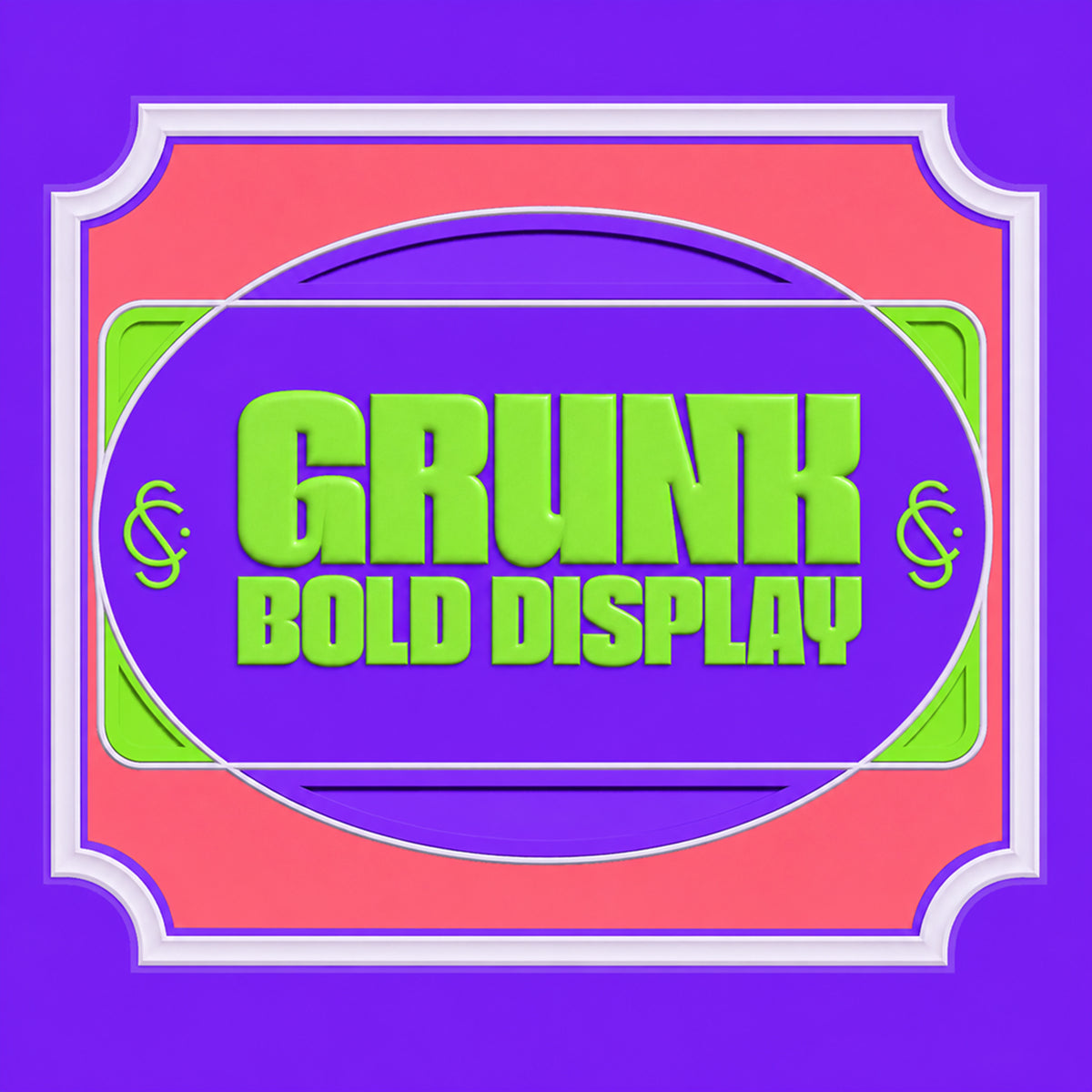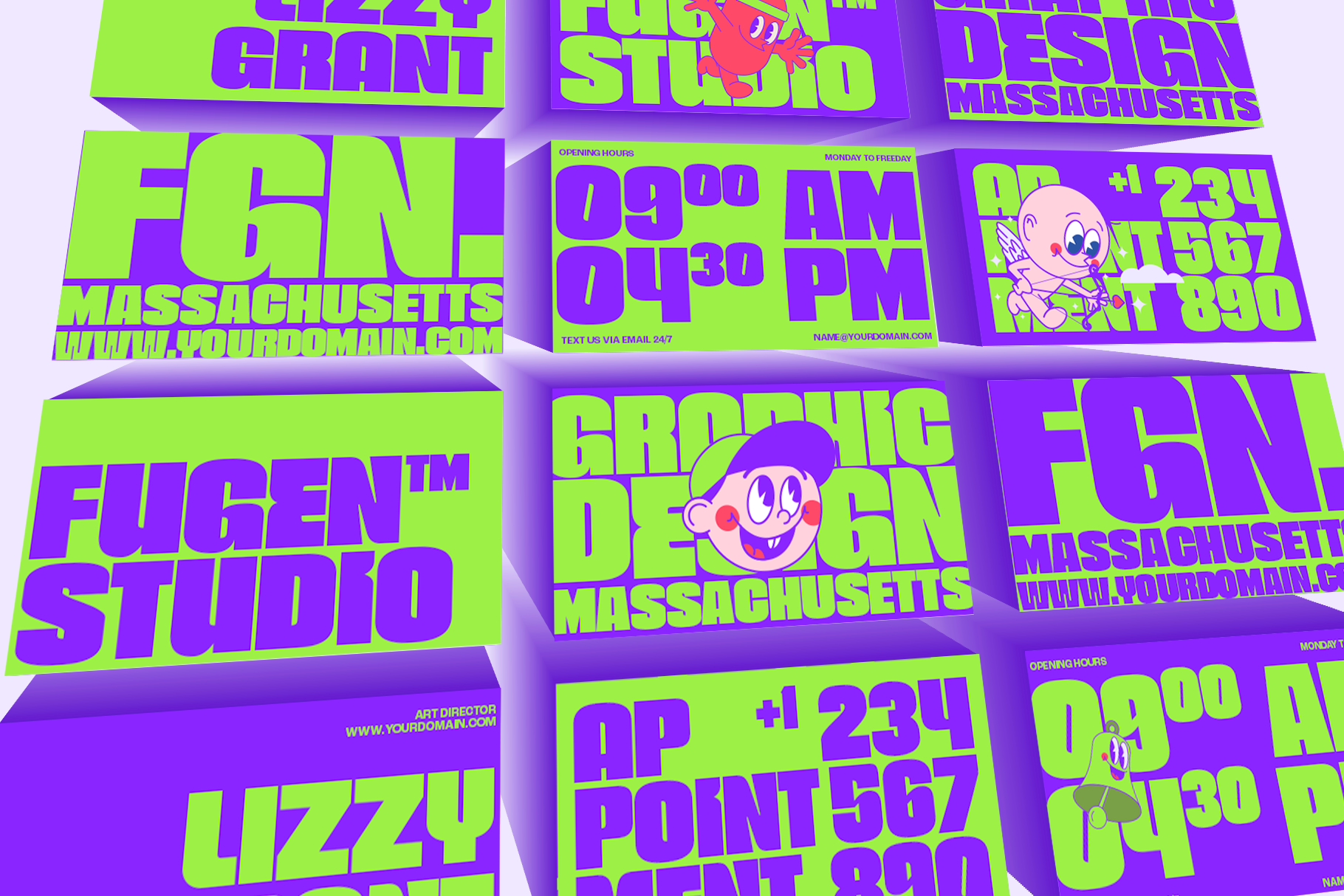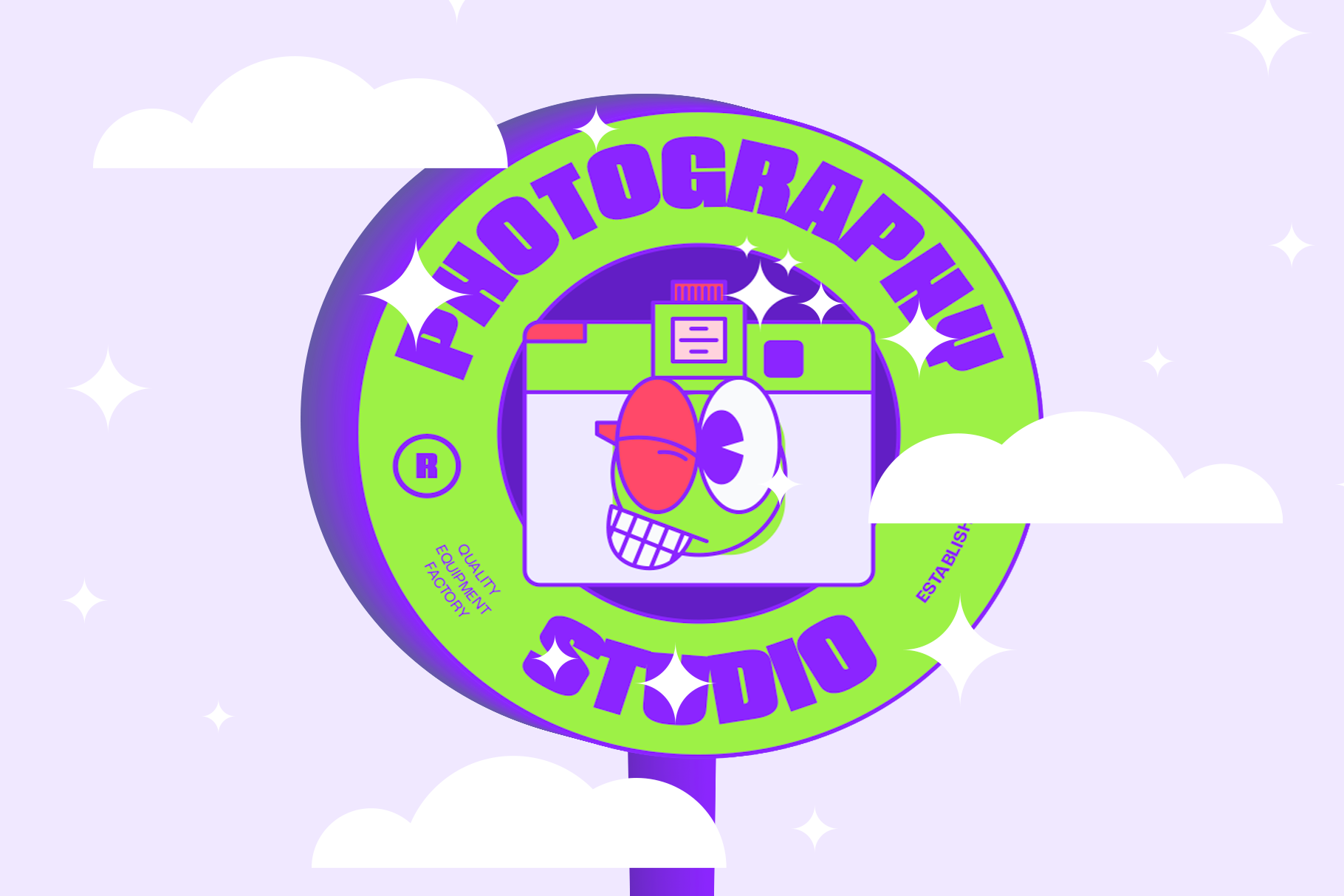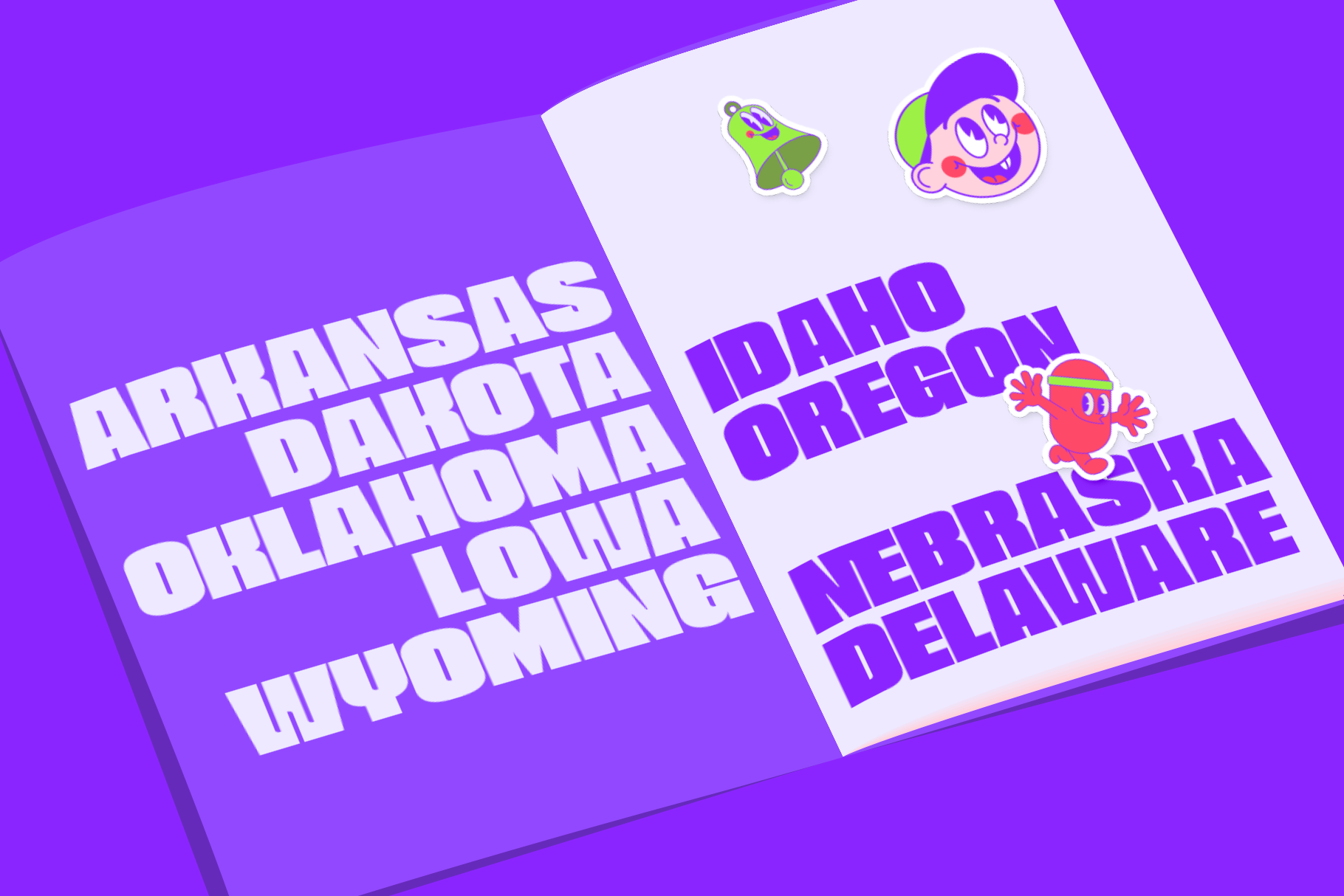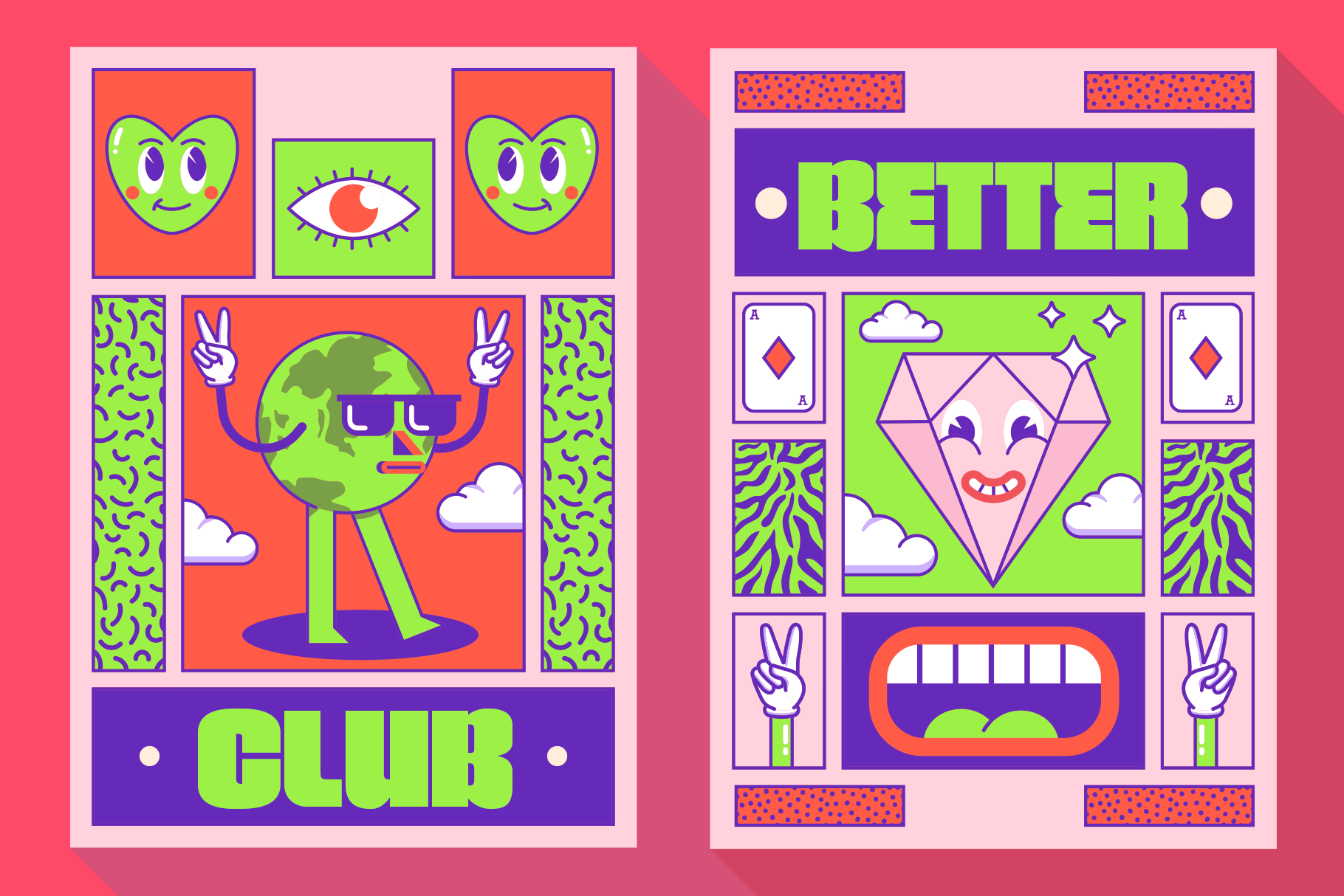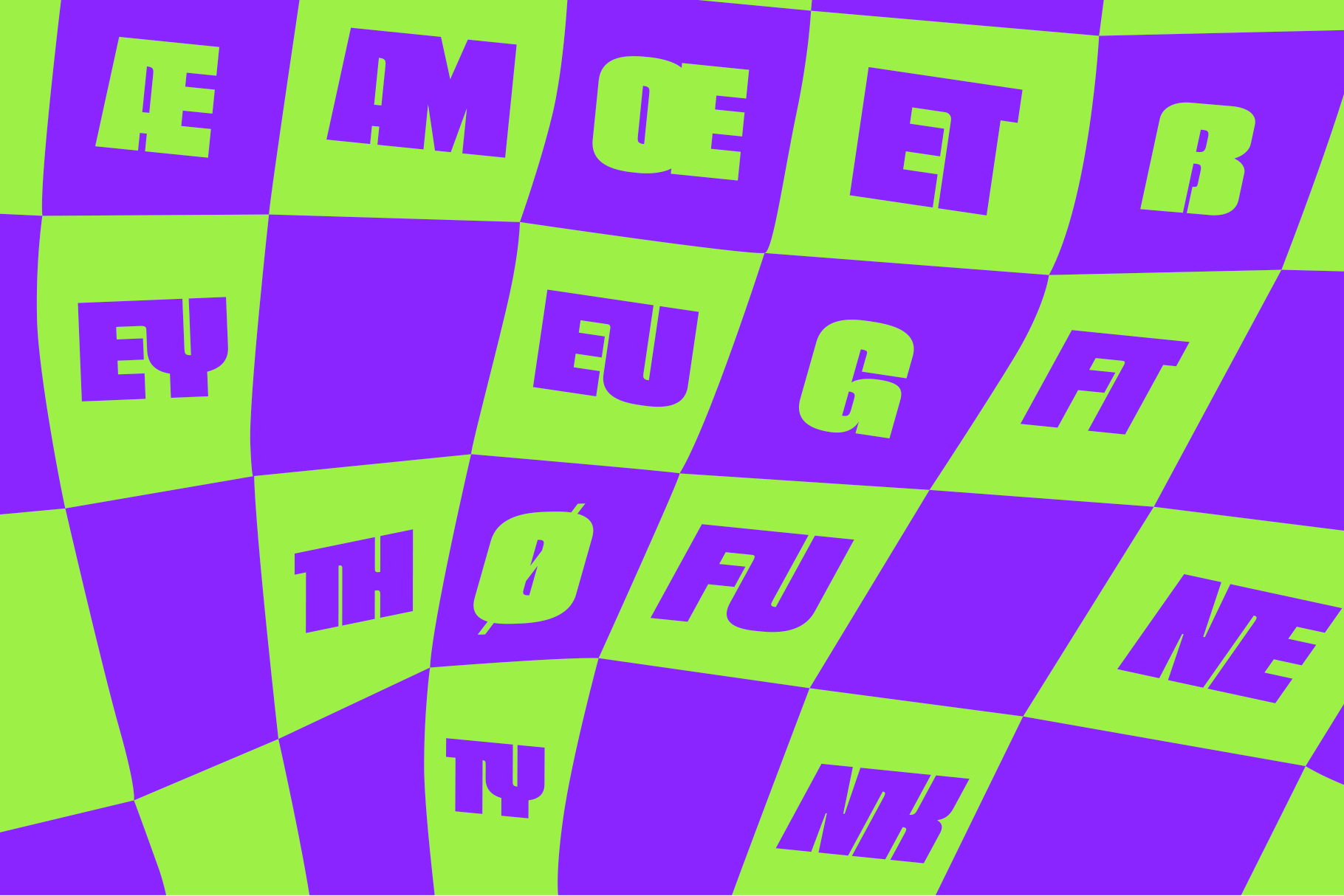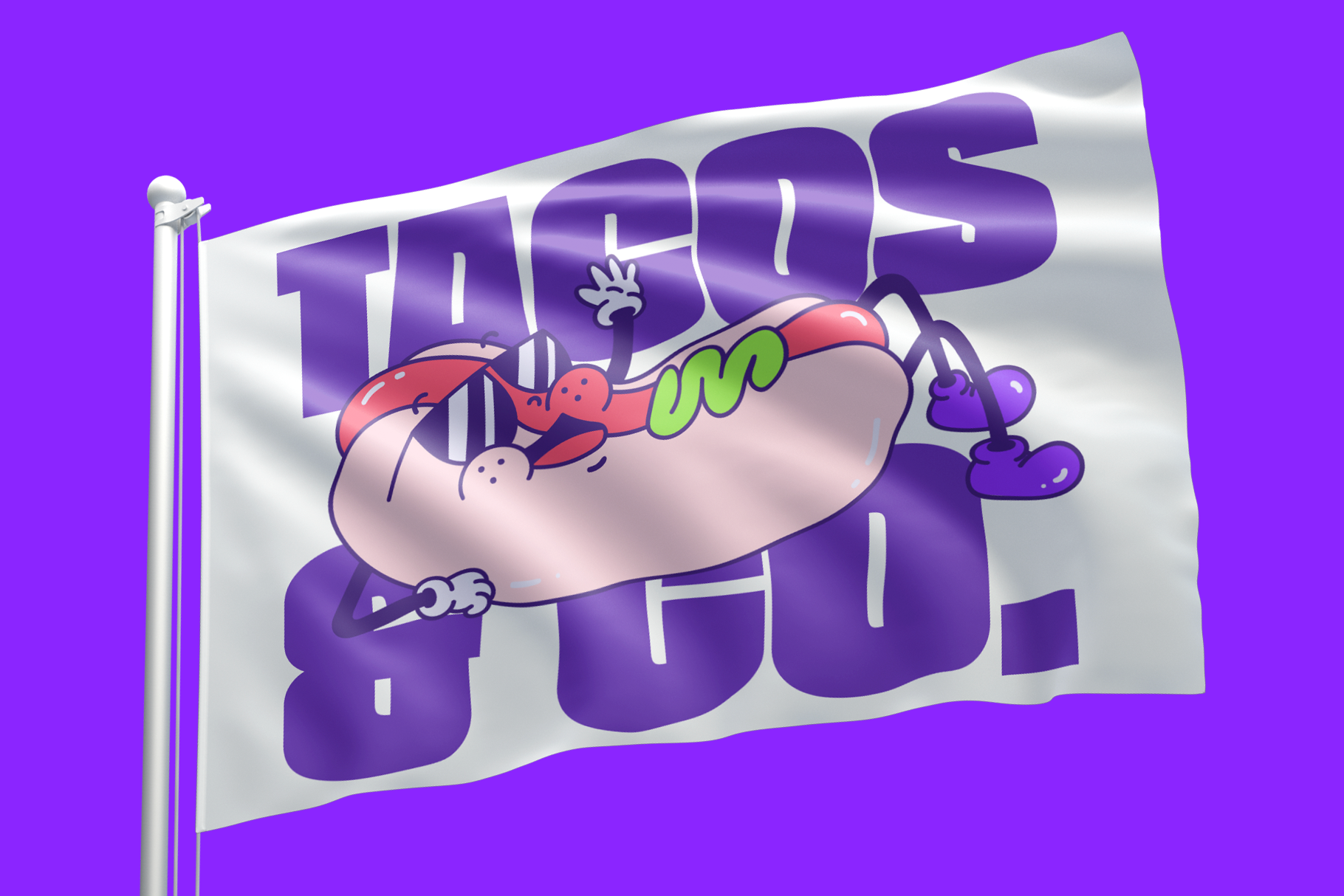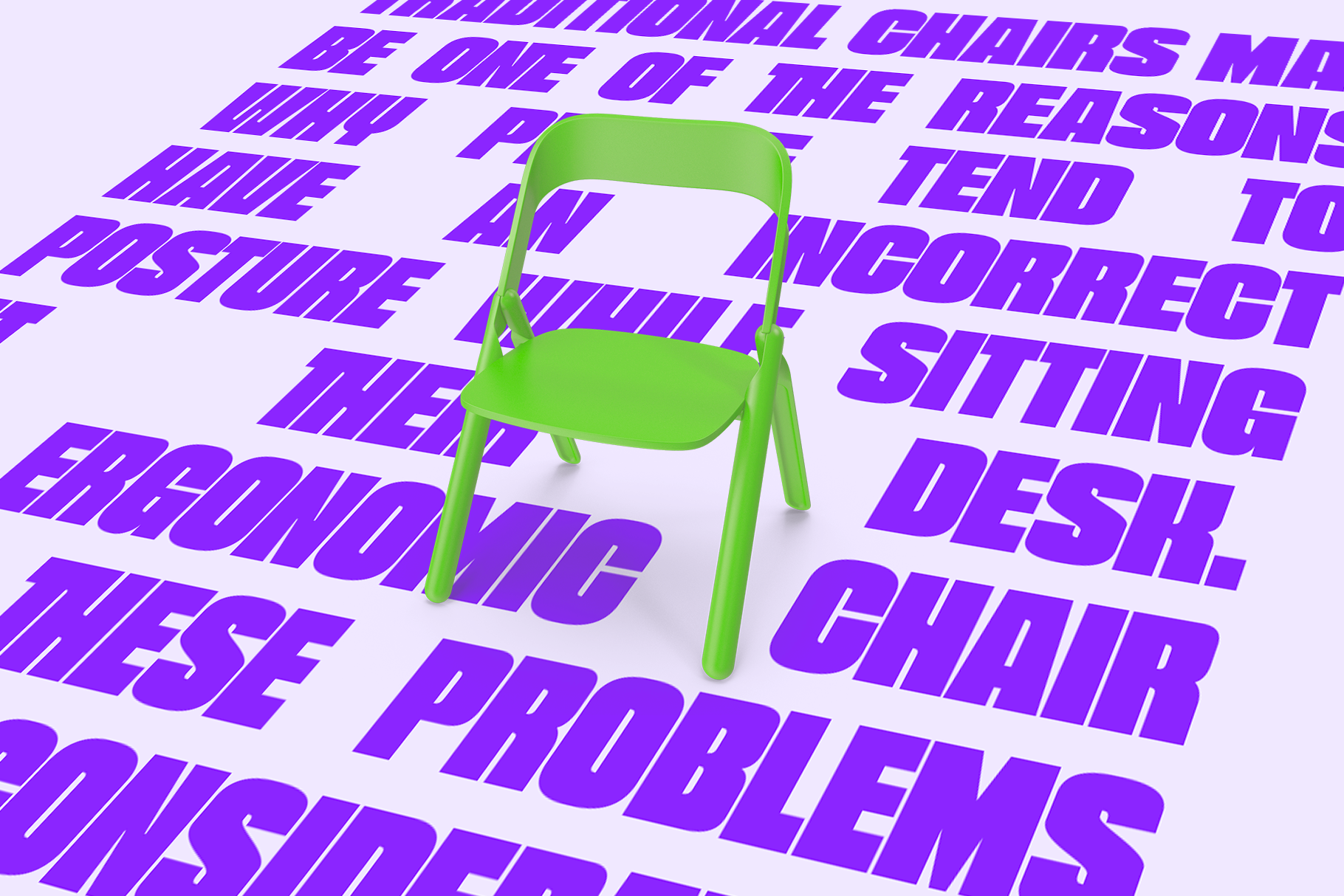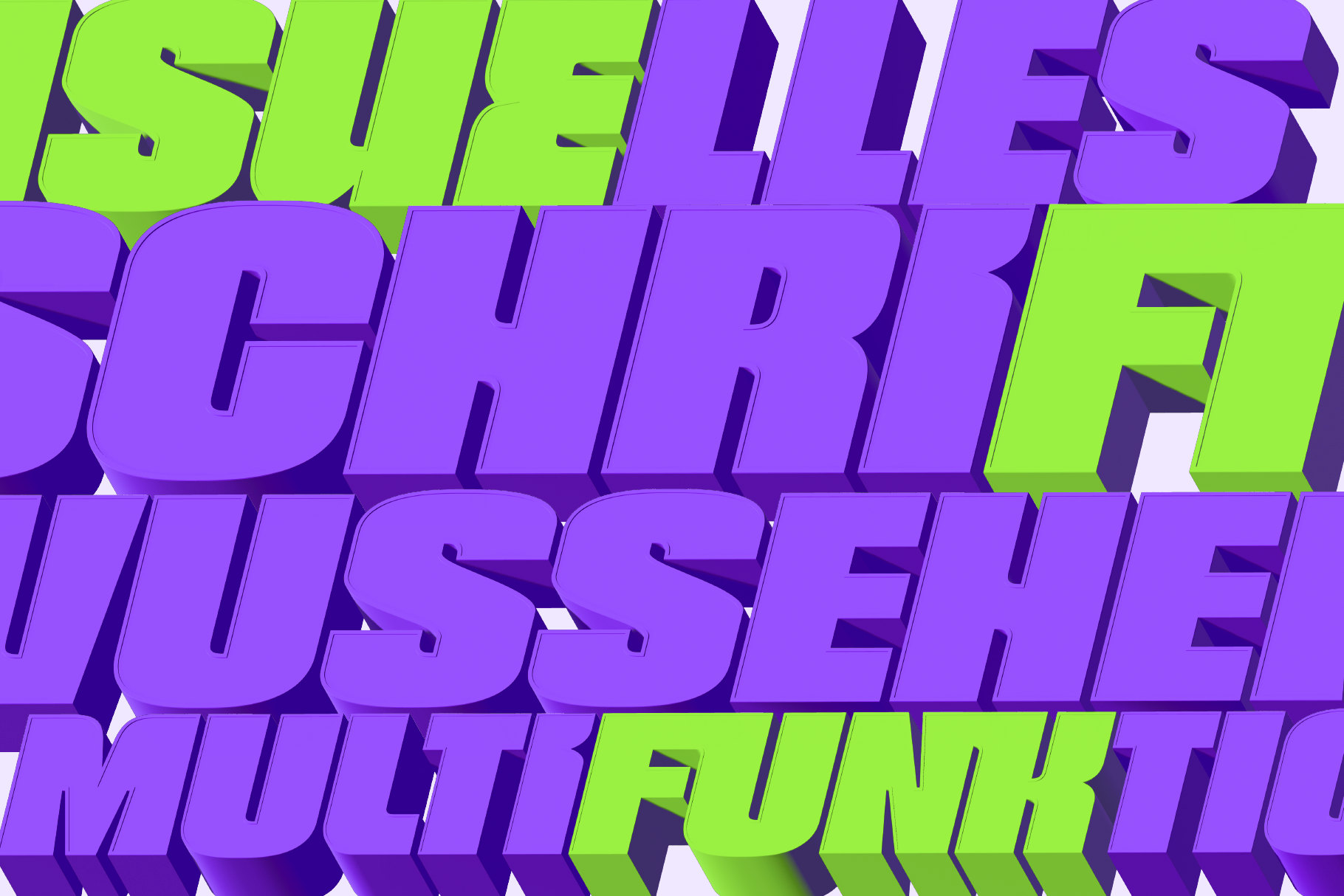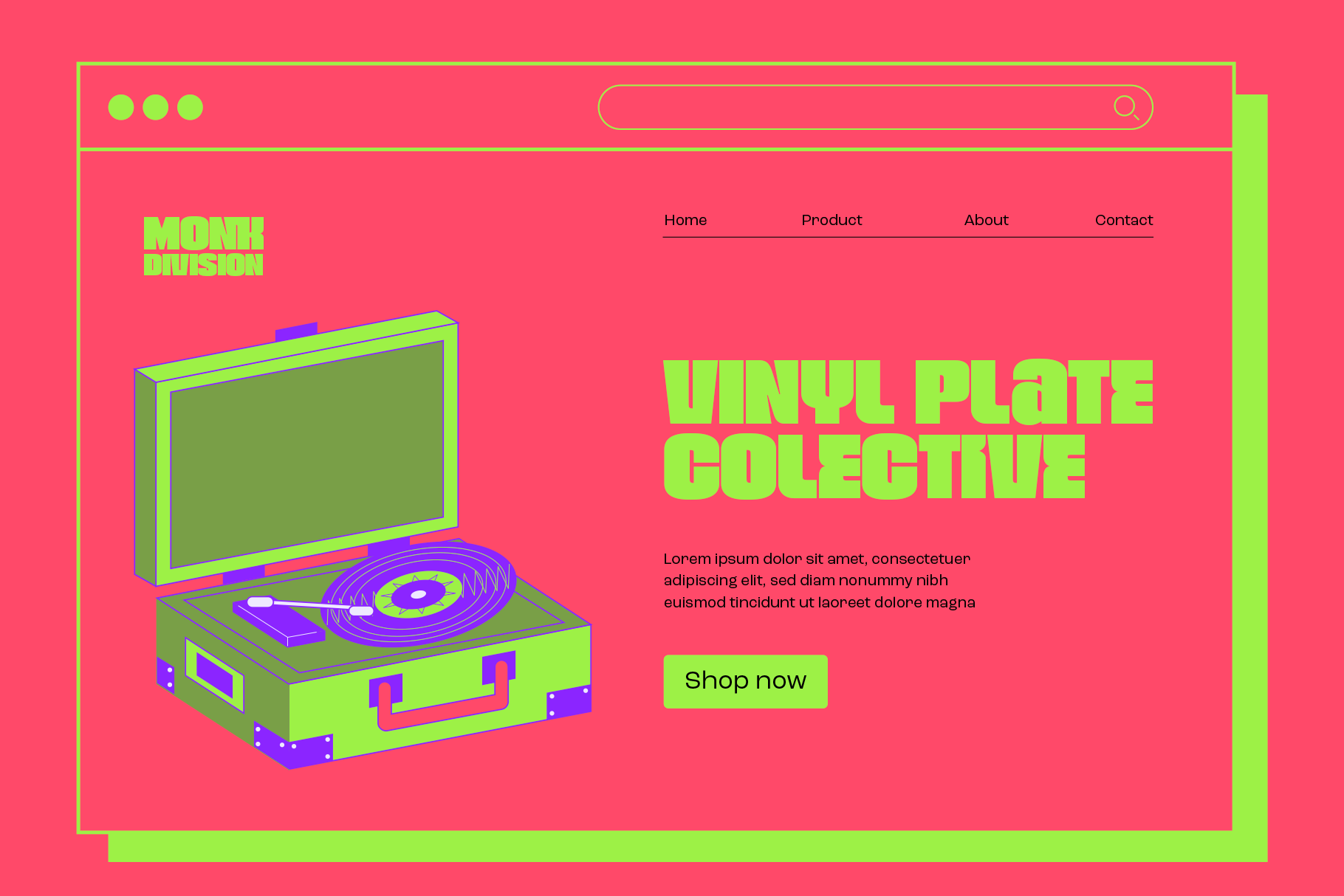
Grunk – Chunky & Groovy Typeface
Grunk is a Bold and Groovy Typeface with Retro Cartoon Vibes! Designed to make your designs pop, Grunk blends playfulness and boldness into one stunning typeface. Featuring chunky letters, groovy alternates, and experimental ligatures, this font is perfect for projects that demand a vibrant, nostalgic, and funky feel.
Ideal for posters, branding, album covers, stickers, logotypes, and editorial designs, Grunk is your go-to choice for a typeface that screams energy and character. Whether you’re creating Y2K-inspired graphics or bold modern visuals, Grunk has everything you need.
Key Features:
Chunky & Playful Style – Retro, cartoon-inspired, and bold
Groovy Alternates & Ligatures – Make every letter unique
Extended Latin Support – Covers 100+ languages
Perfect for branding, editorial, posters, packaging & more
Grunk is a bold and groovy typeface featuring chunky letters, playful alternates, and experimental ligatures, designed with retro cartoon vibes. It includes Grunk-Bold in OTF, TTF, WOFF, and WOFF2 formats, and offers extended Latin support for over 100 languages.